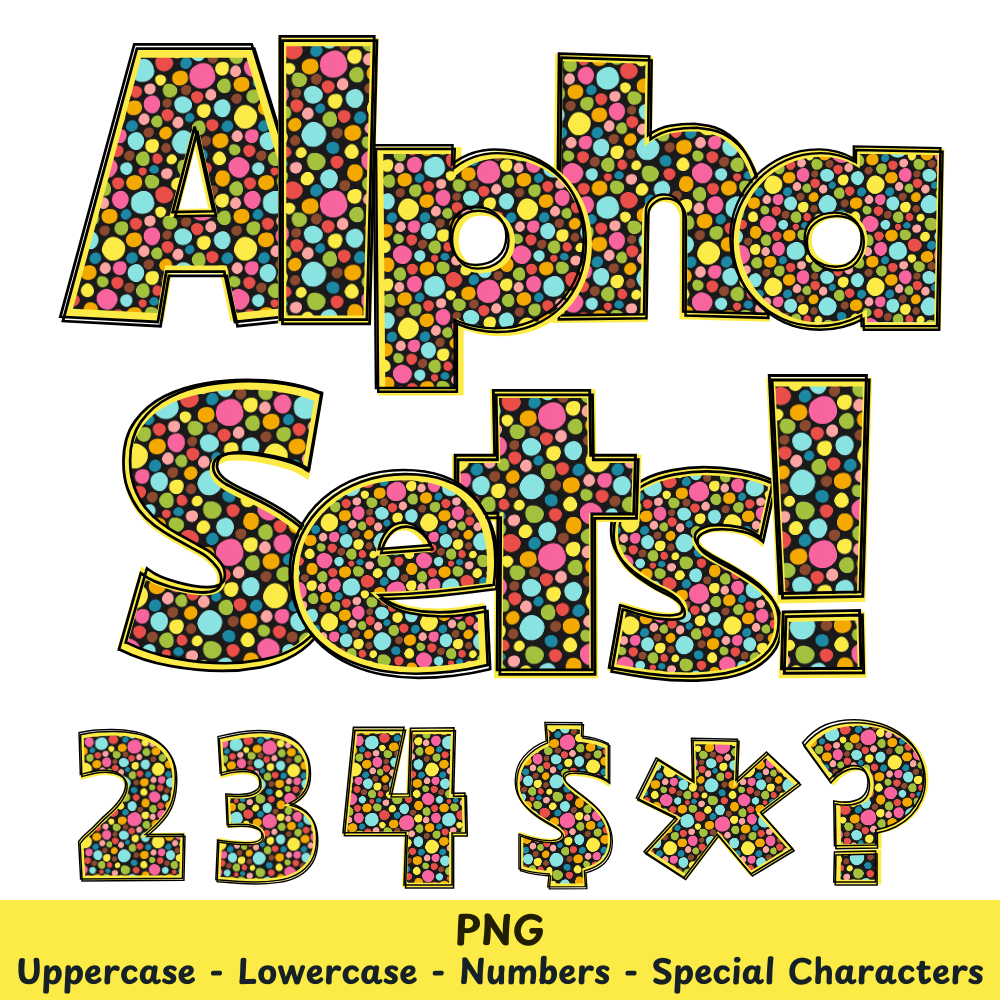
Yellow Polka Dots PNG Font
Yellow Polka Dots Alpha Set PNG Font Pack
Elevate your crafts with the Yellow Polka Dots PNG Font. With its vibrant yellow color and unique polka dot design, this font adds a playful touch to any project. Use it in sublimation and other crafts for a fun and eye-catching look.